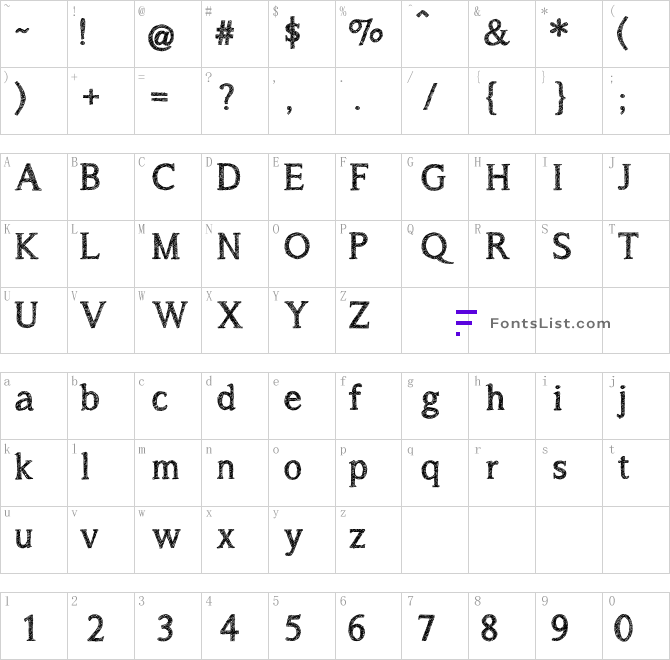
• Font Name:a song for jennifer
• Subfamily:BrittneyMurphy: a song for jennifer: 2011
• Full Name:a song for jennifer
a-song-for-jennifer-copy-1-.ttf is a very beautiful artistic font, a-song-for-jennifer-copy-1-.ttf is widely used in the design and printing of various books and pictures,a-song-for-jennifer-copy-1-.ttf has a strong visual impact,a-song-for-jennifer-copy-1-.ttf is a commonly used font in newspapers, magazines and books, and is used in posters, e-commerce Poster design, store design, logo design, font design and other fields.a-song-for-jennifer-copy-1-.